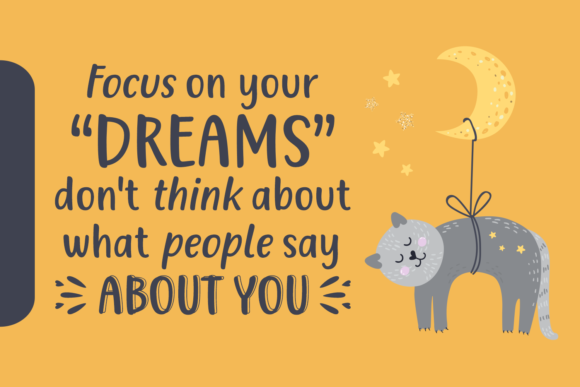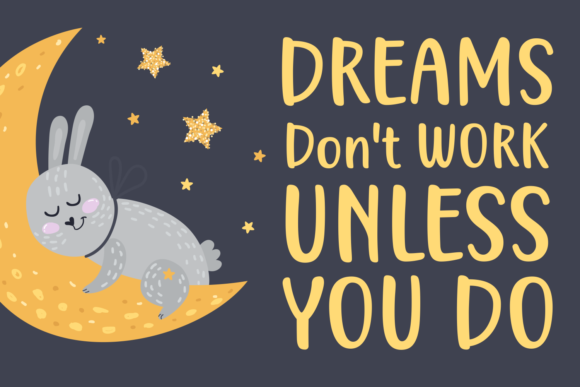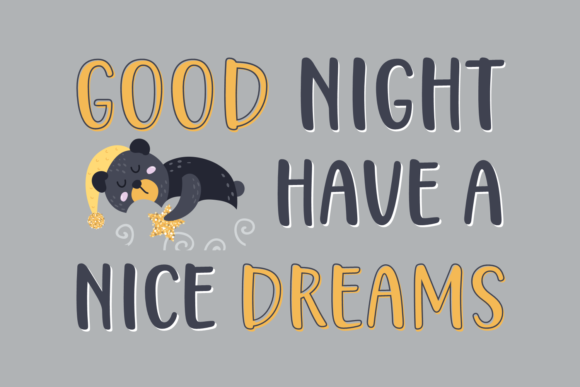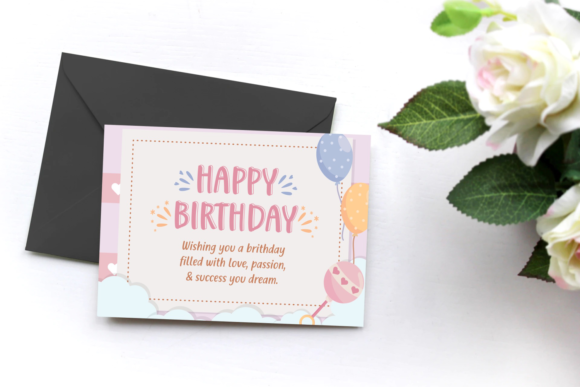
Always Dream Big Font
About Always Dream Big Font
Always Dream Big is a font family that is perfect for adding a charming look to any text. Fall in love with its playful look & feel!